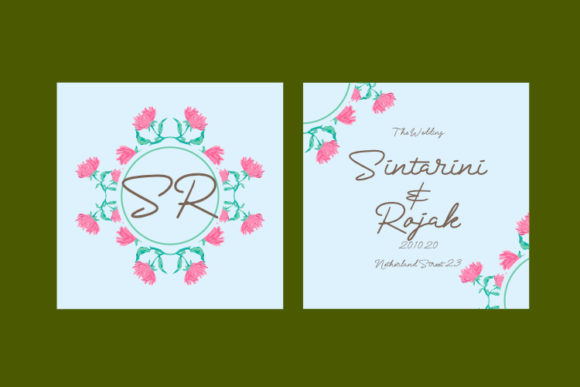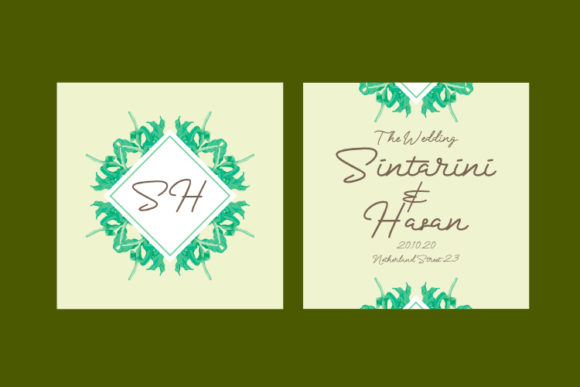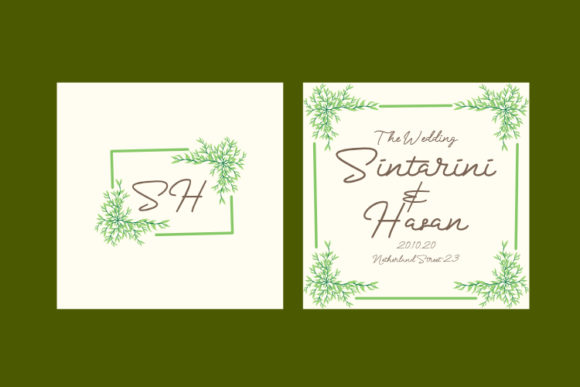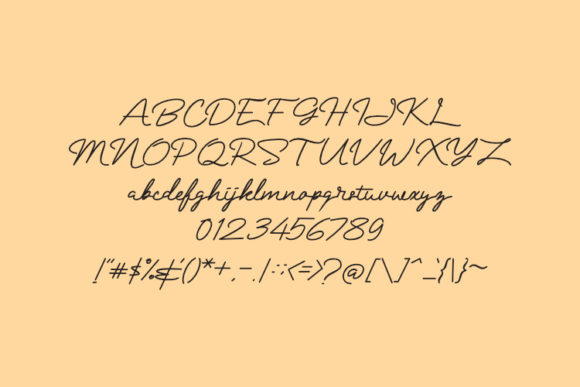
Introduction to Mranggens Font
The Mranggens is a modern handwritten font.
It has a stylish handwritten touch which is perfect for adding a natural and classy look to your designs It’s perfect for many different project such as logos & branding, invitation, stationery, wedding designs, social media designs, and much more.